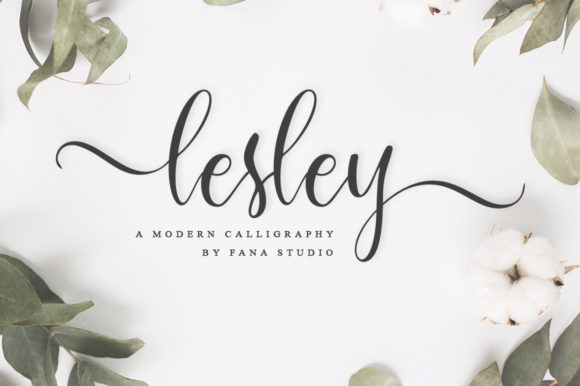
Introducing Lesley Script Font, the epitome of romance and sweetness in the world of calligraphy typefaces. Designed by fanastudio, this font is the perfect choice for those seeking to add a touch of luxury and elegance to their design projects. With its enchanting characters that gracefully dance along the baseline, Lesley Script will captivate your audience and leave a lasting impression.
What sets Lesley Script apart is its incredible versatility and functionality. Whether you're working on a modern app interface, a website, a branding project, or even wedding invitations, this font is the ultimate companion. Its exquisite curves and strokes effortlessly blend with any design element, creating a harmonious and visually appealing composition.
One of the standout features of Lesley Script is its extensive glyph and ligature collection. Thanks to its PUA encoding, accessing these delightful extras is a breeze. Every letter and character has been meticulously crafted, allowing you to explore a world of creative possibilities. Let your imagination run wild as you effortlessly combine different glyphs and ligatures to bring your designs to life.
The beauty of Lesley Script lies not only in its visual appeal but also in its ability to evoke emotions. The elegant and flowing nature of this font creates a sense of romance and sophistication. It effortlessly transports your audience to a world of enchantment, making it the perfect choice for projects that aim to mesmerize and captivate.
Imagine the impact Lesley Script will have on your next design venture. Whether you're aiming to create a stunning logo, an eye-catching flyer, or a breathtaking social media post, this font will elevate your work to new heights. Its charm and allure will draw attention and leave a lasting impression on anyone who encounters it.